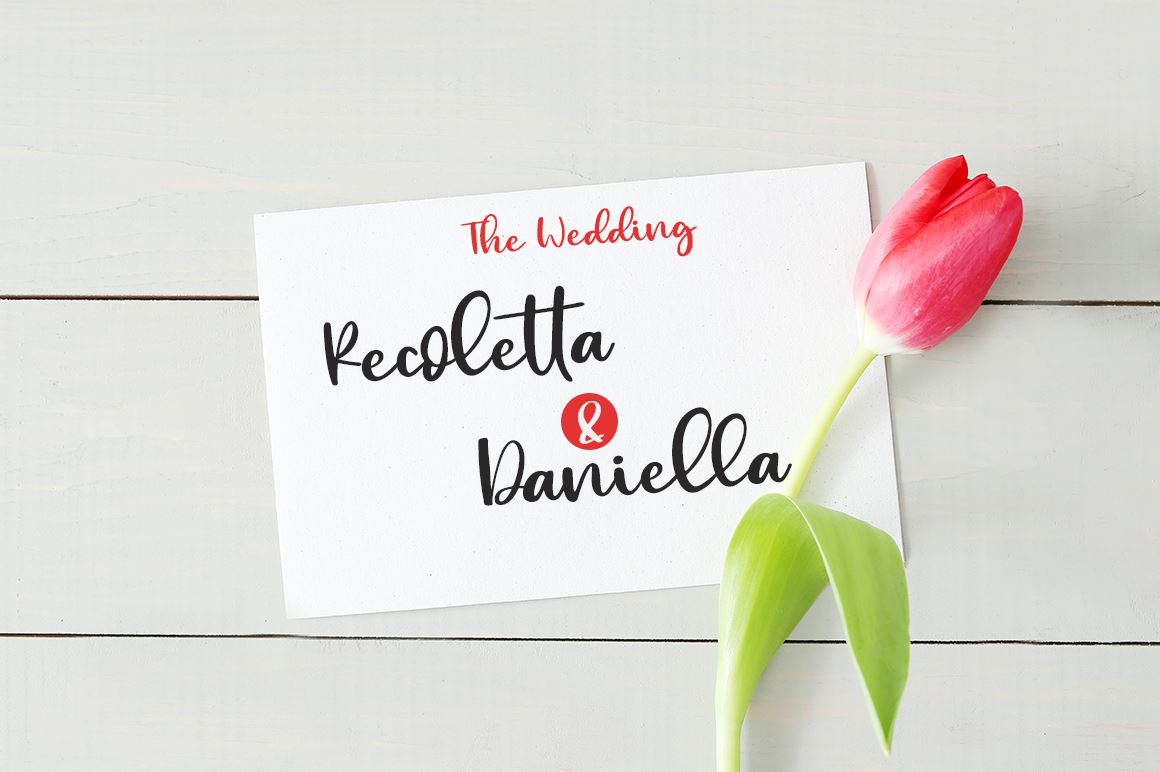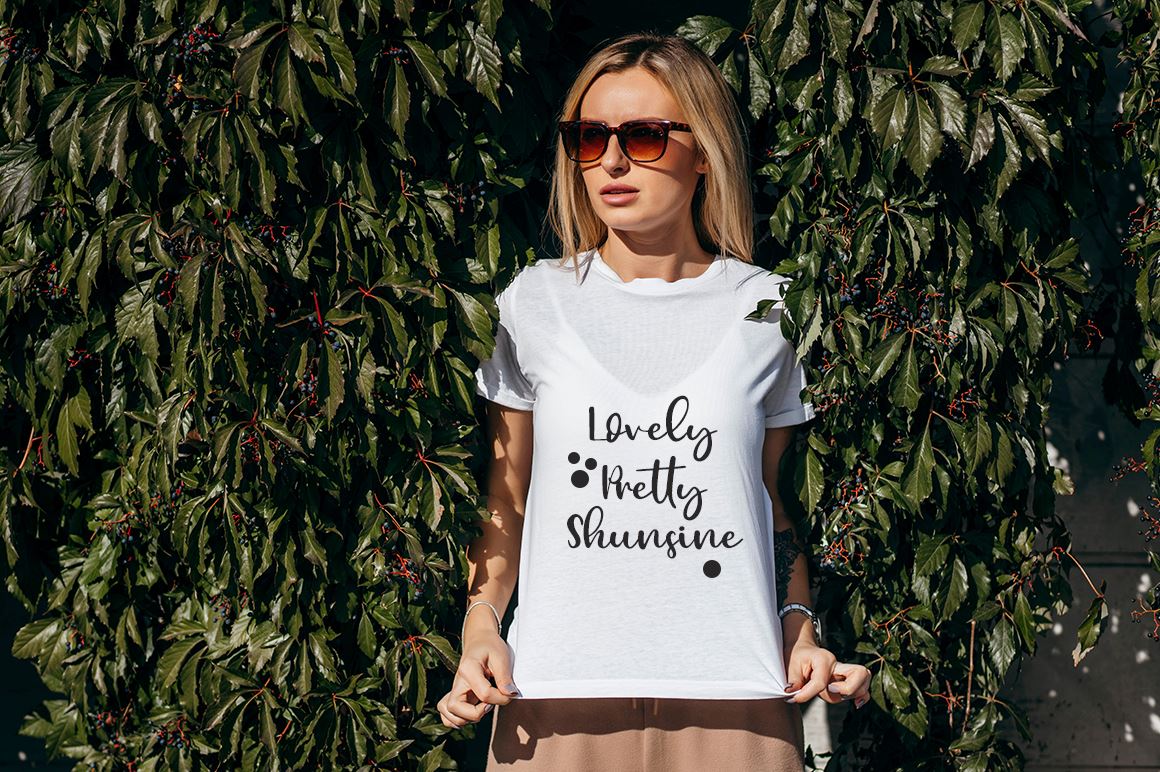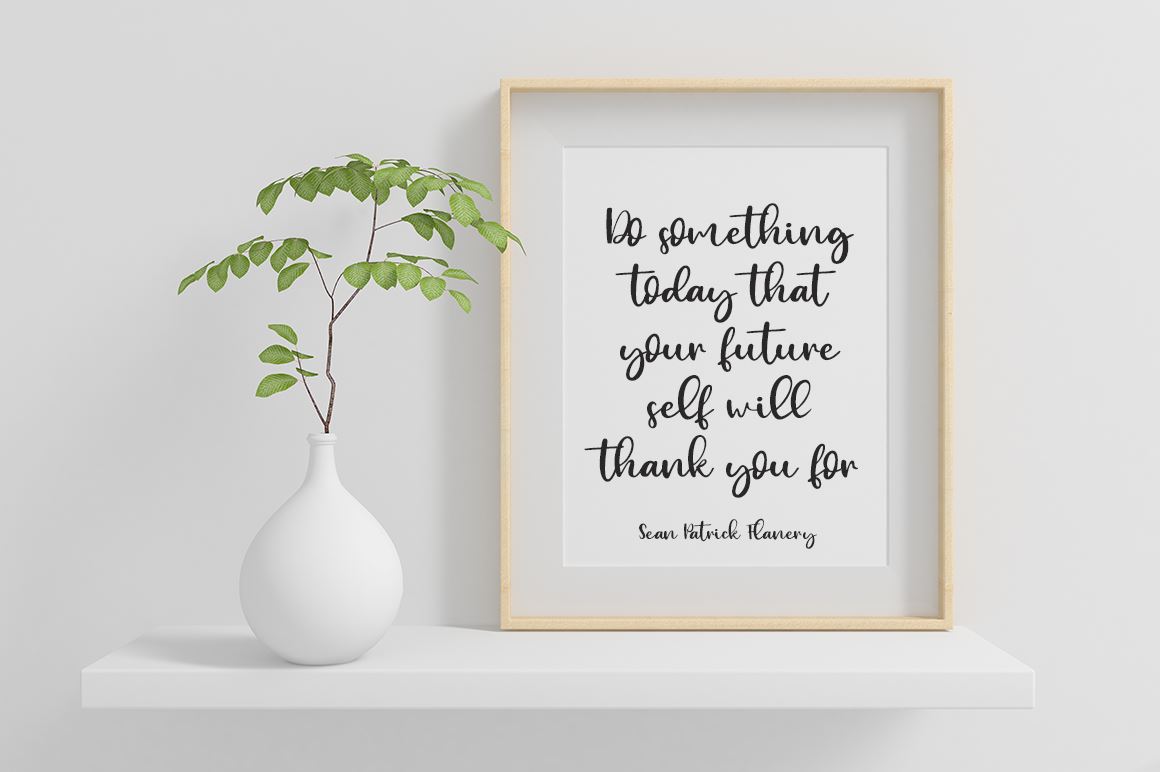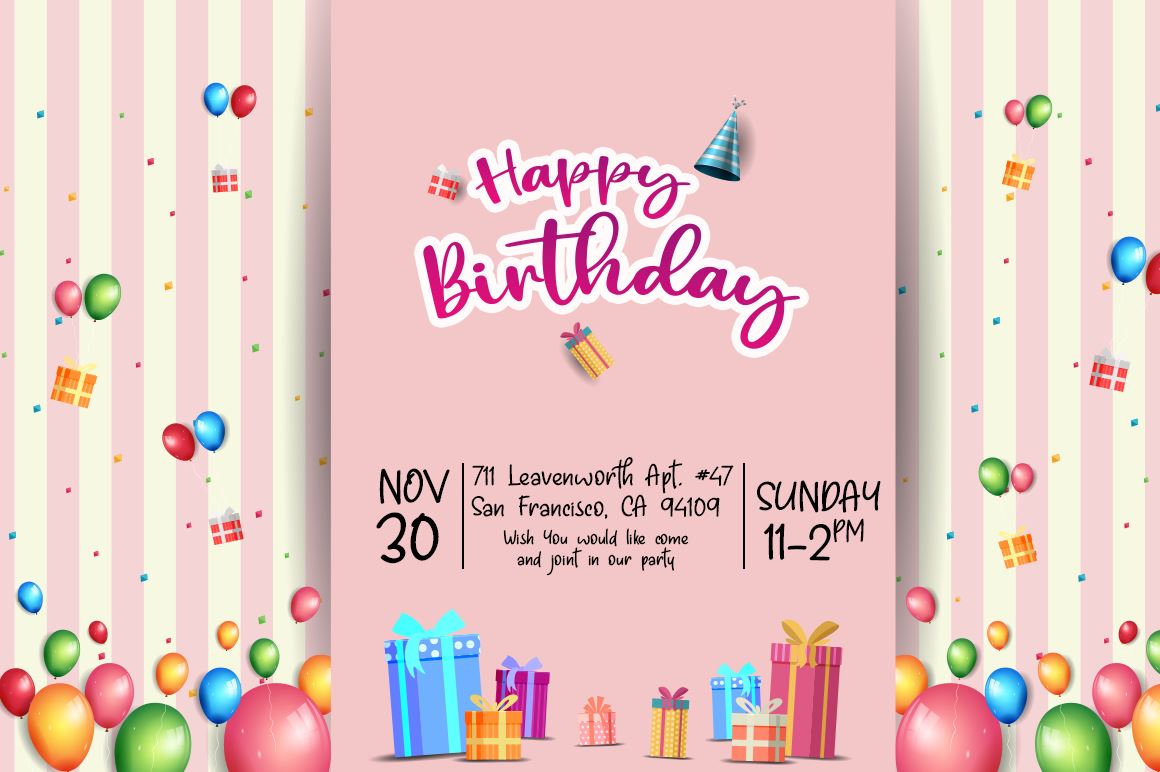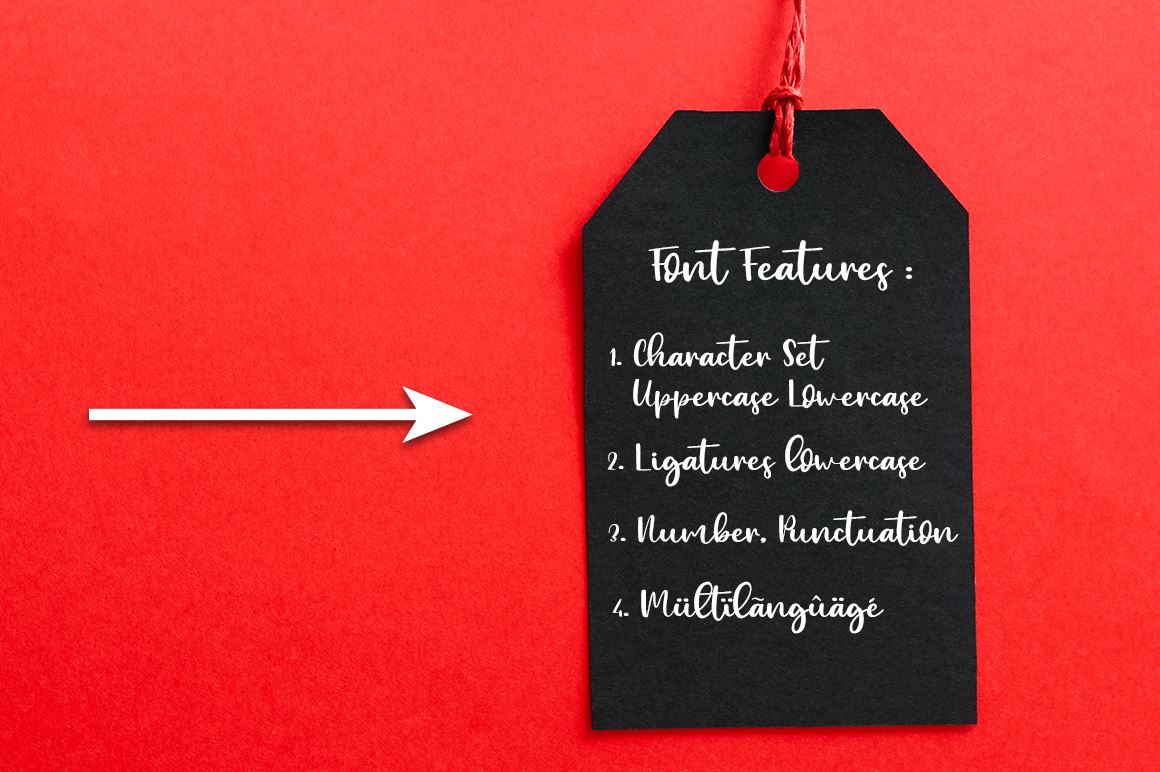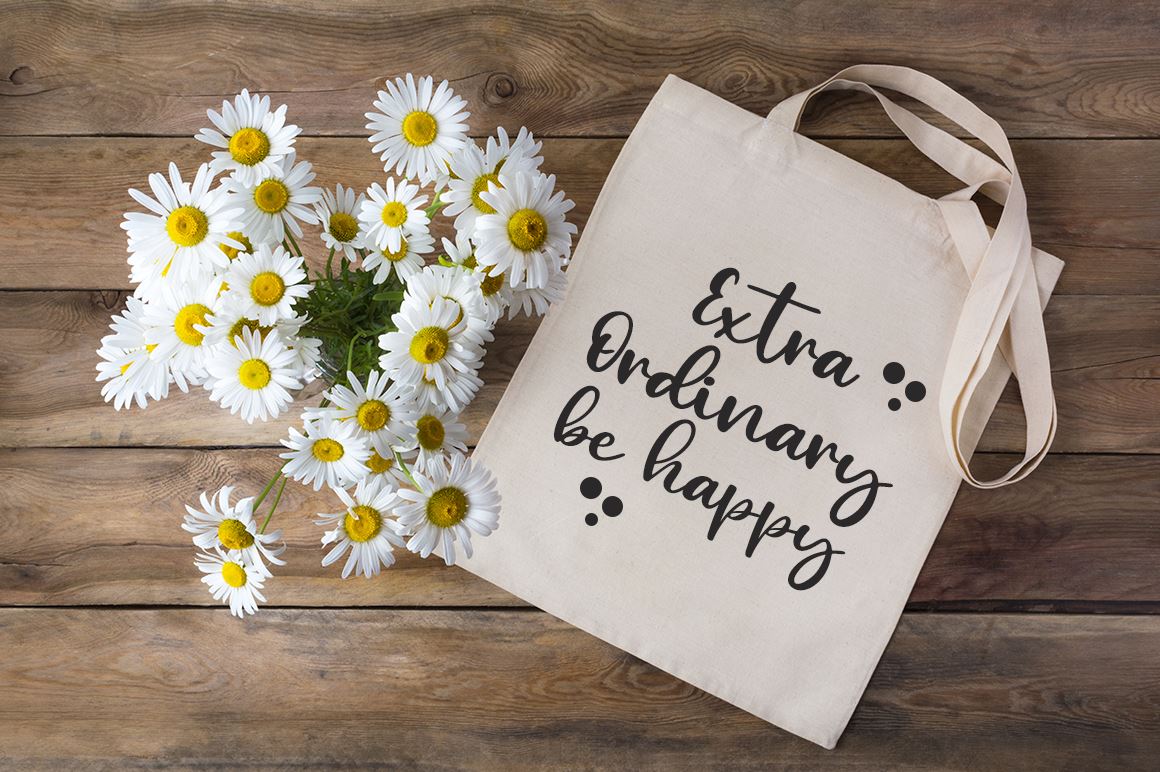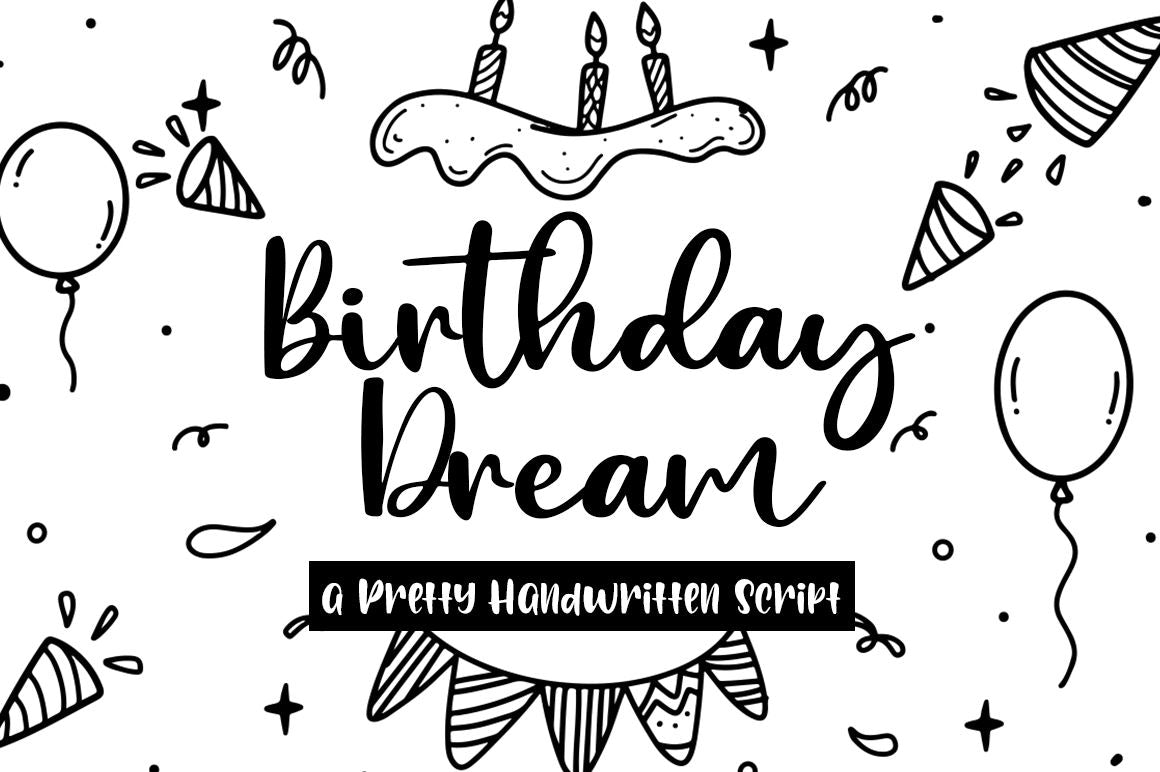
Birthday Dream Cute and Quirky Handwritten Script
About Birthday Dream Cute and Quirky Handwritten Script
Birthday Dream Handwritten Script Font Introducing a cute handwriting \”Birthday Dream\” Script Font! If you are needing a touch of casual modern calligraphy for your designs, this font was created for you! What’s Included: Uppercase and Lowercase Ligatures Number and Punctuation Support Language All above mentioned available in (TTF + OTF) This font works best in a program that supports OpenType features such as Adobe Indesign, Adobe Illustrator CC and CS, or Adobe Photoshop CC and CS also CorelDraw More Questions? Here are some (potential) answers! Do not to resell this font in any way. Multilingual Support is included for Western European Languages Cheers!